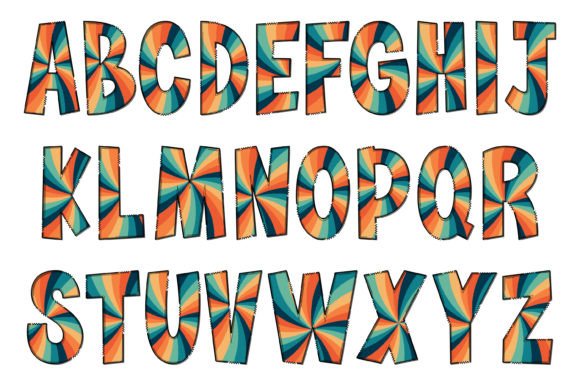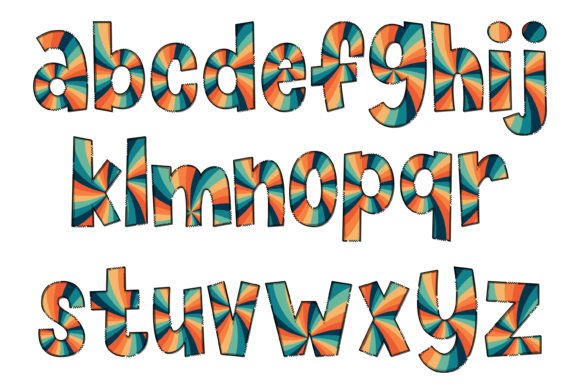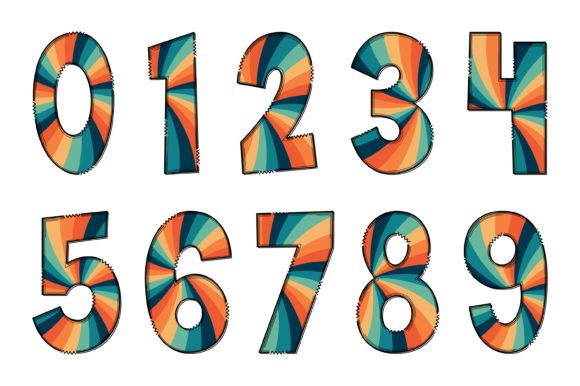
Groovy Hippie Font: Revive the Free-Spirited Vibes of the Hippie Era
Are you a designer or crafter looking to add a touch of nostalgia and playfulness to your creations? Look no further than the Groovy Hippie font! This vibrant and whimsical font is perfect for transporting you back to the groovy days of peace, love, and happiness. In this article, we’ll dive into the world of Groovy Hippie and explore how this amazing font can elevate your designs.
The Essence of Groovy Hippie
Groovy Hippie is a colorful and lively font that embodies the carefree spirit of the hippie era. With its bold and playful patterns, this font is guaranteed to add a fun and retro touch to any design. The vibrant hues and swirling shapes evoke a sense of freedom and creativity, making it perfect for projects that require a dash of whimsy and personality.
Whether you’re designing party invitations, posters, greeting cards, or social media graphics, Groovy Hippie is the perfect companion. This font’s versatility and charm make it suitable for a wide range of projects, including:
- Party invitations: Create eye-catching invites for birthday bashes, festivals, or themed parties that will set the tone for a groovy celebration.
- Posters: Design bold and colorful posters for concerts, events, or promotions that will grab attention and leave a lasting impression.
- Greeting cards: Add a touch of personality to your greeting cards for birthdays, holidays, or special occasions that will make them truly unforgettable.
- Social media graphics: Elevate your social media presence with engaging and playful graphics that showcase your brand’s creative side.
Key Features of Groovy Hippie Font
So, what makes Groovy Hippie font so special? Here are some of its key features:
- Colorful and vibrant hues: The font’s bold and bright colors will add a pop of fun to your designs.
- Playful patterns: The swirling shapes and patterns will transport you back to the psychedelic world of the hippie era.
- Whimsical feel: The font’s carefree and playful vibe will add a touch of personality to your designs.
Tips for Using Groovy Hippie Font
To get the most out of Groovy Hippie font, here are some tips to keep in mind:
- Experiment with colors: Don’t be afraid to try out different color combinations to find the perfect match for your design.
- Mix and match: Combine Groovy Hippie font with other fonts or graphics to create a unique and eye-catching design.
- Keep it simple: Don’t overdo it – sometimes, less is more. Use Groovy Hippie font to add a touch of personality, but keep your design clean and simple.
Groovy Hippie font is a game-changer for designers and crafters looking to add a touch of nostalgia and playfulness to their creations. With its vibrant hues, playful patterns, and whimsical feel, this font is perfect for transporting you back to the groovy days of peace, love, and happiness. Whether you’re designing party invitations, posters, or greeting cards, Groovy Hippie font is sure to elevate your designs and leave a lasting impression. So, what are you waiting for? Get groovy with Groovy Hippie font and let your creativity shine!